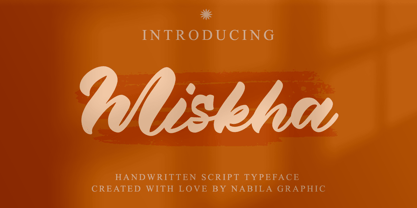
Miskha
by MC Creative
The Miskha Font Family was designed by Mohamad Candirah and published by MC Creative. Miskha contains 1 styles.
Miskha is handwriting script font which natural movement and elegant style.
Miskha perfect for branding projects, film, logo, wedding designs, social media posts, advertisements, product packaging, product designs, label, photography, watermark, invitation, stationery and any projects that need handwriting taste.